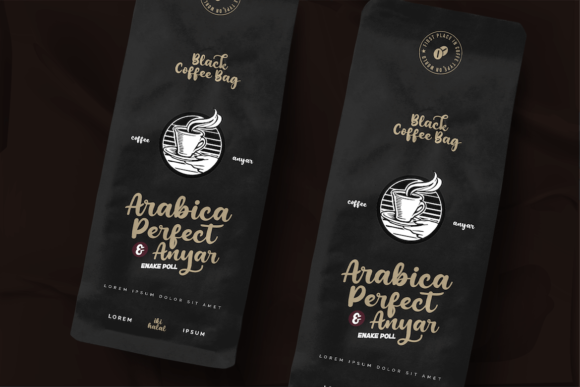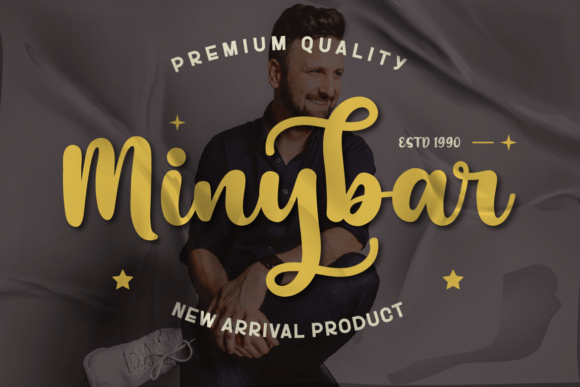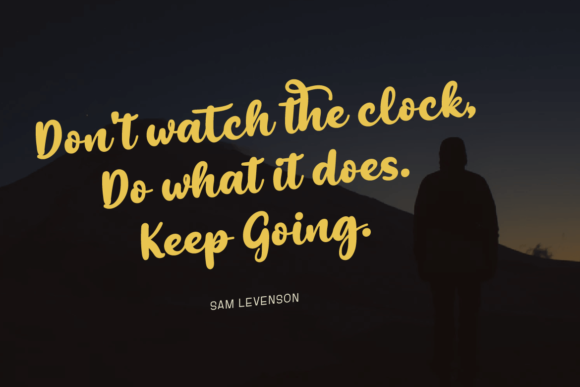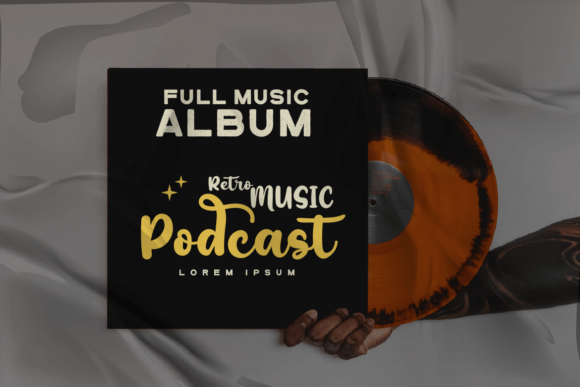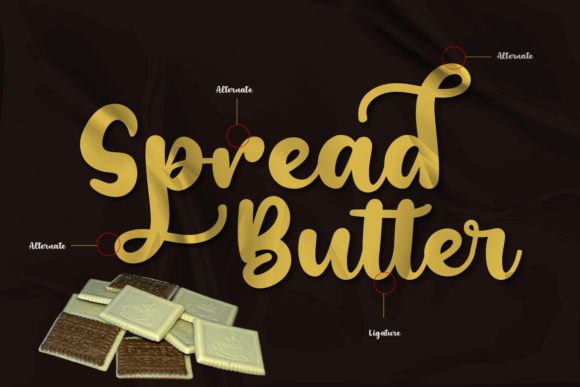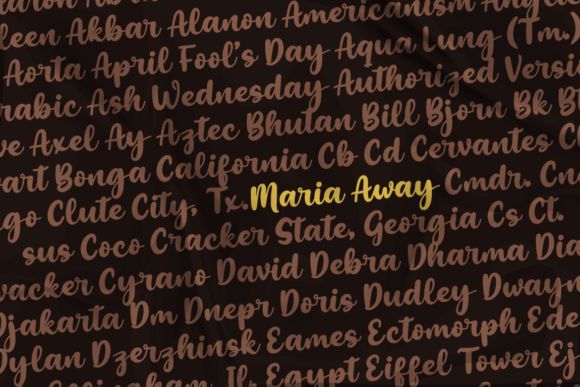
The Perfect Blend of Nostalgia and Style: Introducing Andytes Font
Remember that moment when you stumbled upon the perfect font, and your design instantly came alive? For designers, it’s a feeling that never gets old. And today, we’re excited to share with you a new addition to your font arsenal: Andytes Font. This gorgeous and bold handwritten font is designed to give your headlines and logotype projects a stylish touch that’s both strong and confident.
Andytes Font is more than just a pretty face – it’s a valuable tool for designers looking to add a touch of nostalgia and character to their designs. With its PUA encoded features, you’ll have access to a wide range of glyphs and swashes, making it easy to customize and elevate your projects. Whether you’re working on a branding project or a creative campaign, Andytes Font is sure to make a lasting impression.
- Unique Characteristics: Andytes Font features a unique blend of modern and vintage elements, with intricate details and subtle textures, making it perfect for creative and artistic projects
Andytes Font Review
Overall, I was quite impressed with the Andytes Font when I first laid eyes on it. Here’s what caught my attention:
- ✨ Unique design: The font has an eclectic mix of modern and vintage elements that set it apart from other fonts.
- ✨ Versatility: The font comes in a range of weights and styles, making it suitable for various design projects, from logos to body text.
- ✨ OpenType features: The font includes advanced features like ligatures and swashes that add a touch of elegance to your designs.
- ⚠️ Limited language support: The font only includes a basic Latin character set, which might be a concern for designers working on multilingual projects.
- ⚠️ Kerning issues: I noticed some minor kerning problems in certain combinations of characters, which could affect readability.
- ⚠️ Limited customization options: While the font has a range of weights and styles, the customization options are limited, which might not be ideal for designers who like to experiment with typography.
Overall, the Andytes Font is a solid choice for designers looking for a unique and versatile font. While it has some limitations, its strengths make it a great addition to any design toolkit.
Andytes Font is ideal for creating modern and minimalist designs, making it perfect for branding materials, social media graphics, and marketing materials.
Andytes Font is great for creating professional-looking designs, making it perfect for business cards, brochures, and other print materials.
Andytes Font is ideal for creating presentations, reports, and other documents that require a clean and professional look.